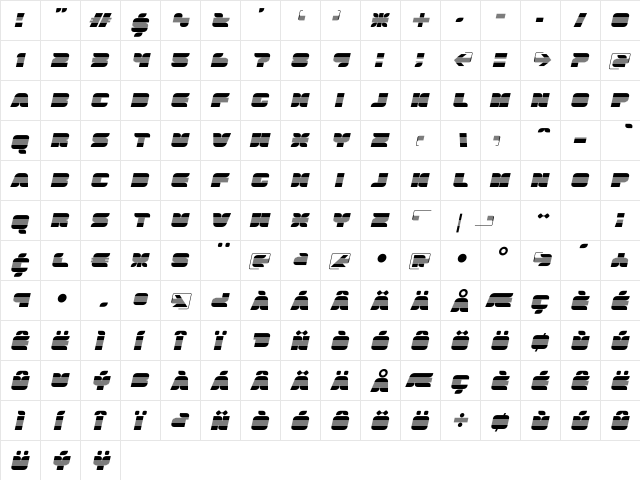
Gemini XOblique Regular
Design Context for Gemini XOblique Typeface
Gemini XOblique is a composed and adaptable typeface that performs quietly and consistently across a wide range of design contexts. Its italic angle brings a sense of urgency and motion to the letterforms.